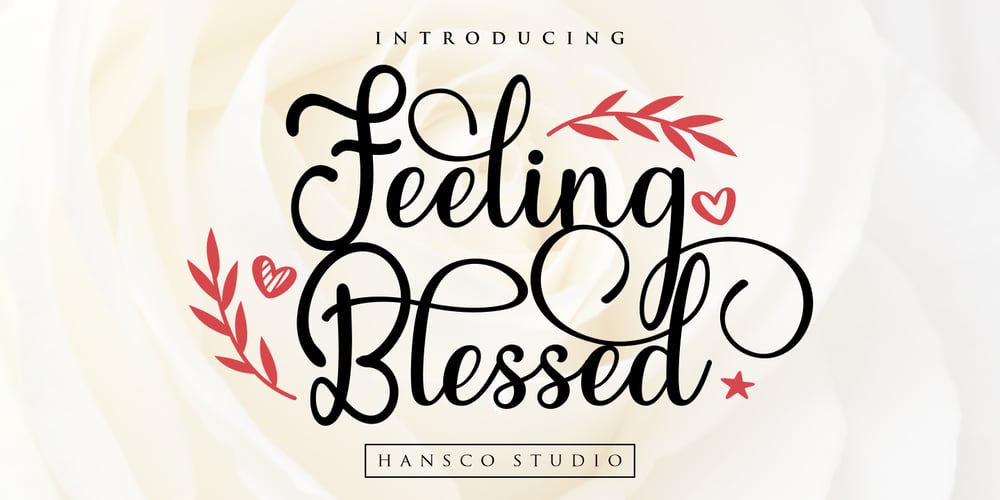
Feeling Blessed
Feeling Blessed font
Feeling Blessed Font Family was designed by Burhan Afif and published by HansCo. Feeling Blessed contains 1 styles and family package options. Feeling Blessed is a beautiful and modern script font. It features an incredibly classic style, while still keeping a friendly feel. Feeling Blessed is the perfect font for making original and outstanding designs. Its casual charm makes it appear wonderfully down-to-earth, readable and, ultimately, incredibly versatile. Feeling Blessed will look outstanding in any context, whether it’s being used on busy backgrounds or as a standalone headline!Comes with a full uppercase, lowercase, numbers and punctuation + standard multilingual support. It’s great for branding, logo designs, lettering, logotype, craft, posters, packaging and much more. We recommend using Adobe Illustrator or Photoshop.Tutorial how to Install & use Alternate / Special Character : https://hanscostudio.com/tutorial/Enjoy!